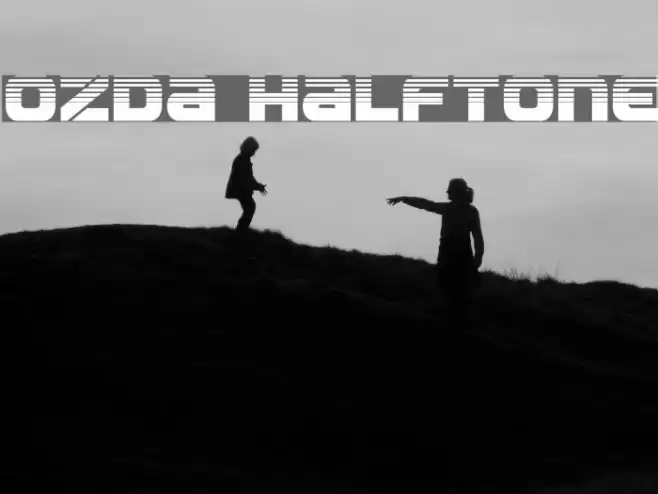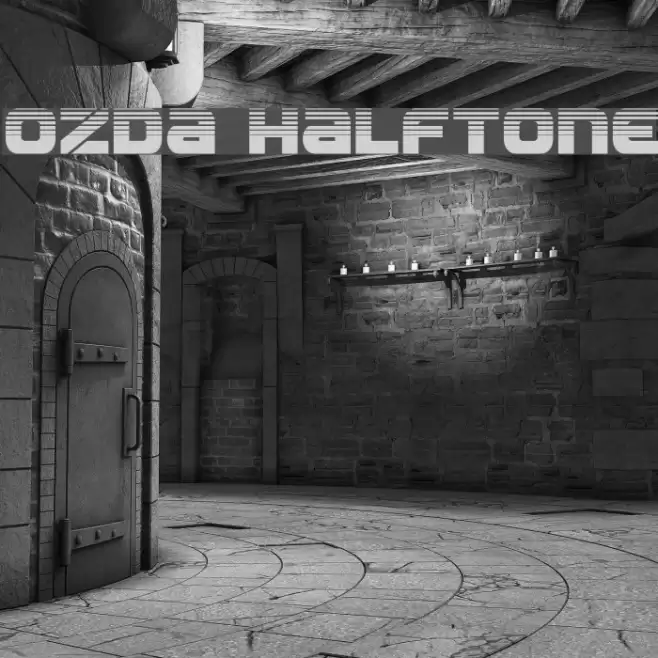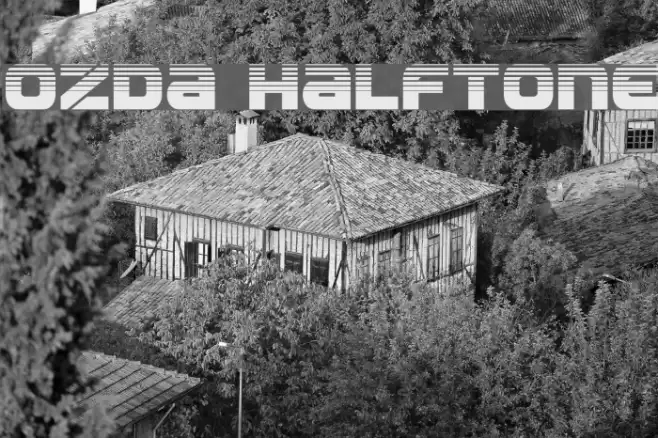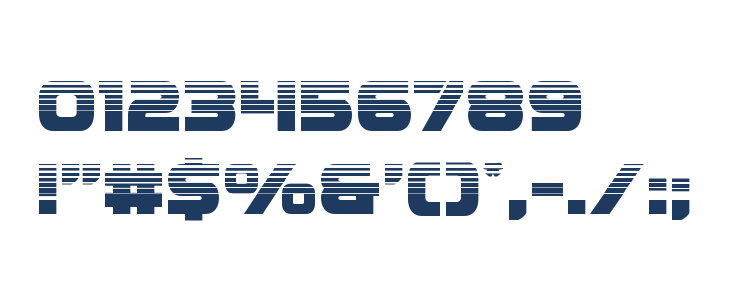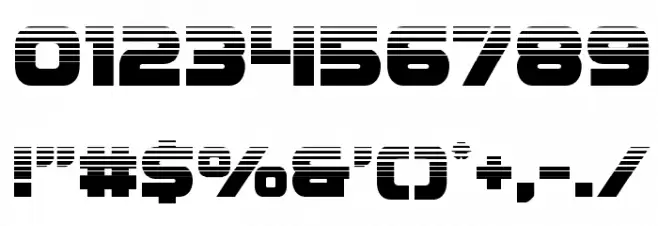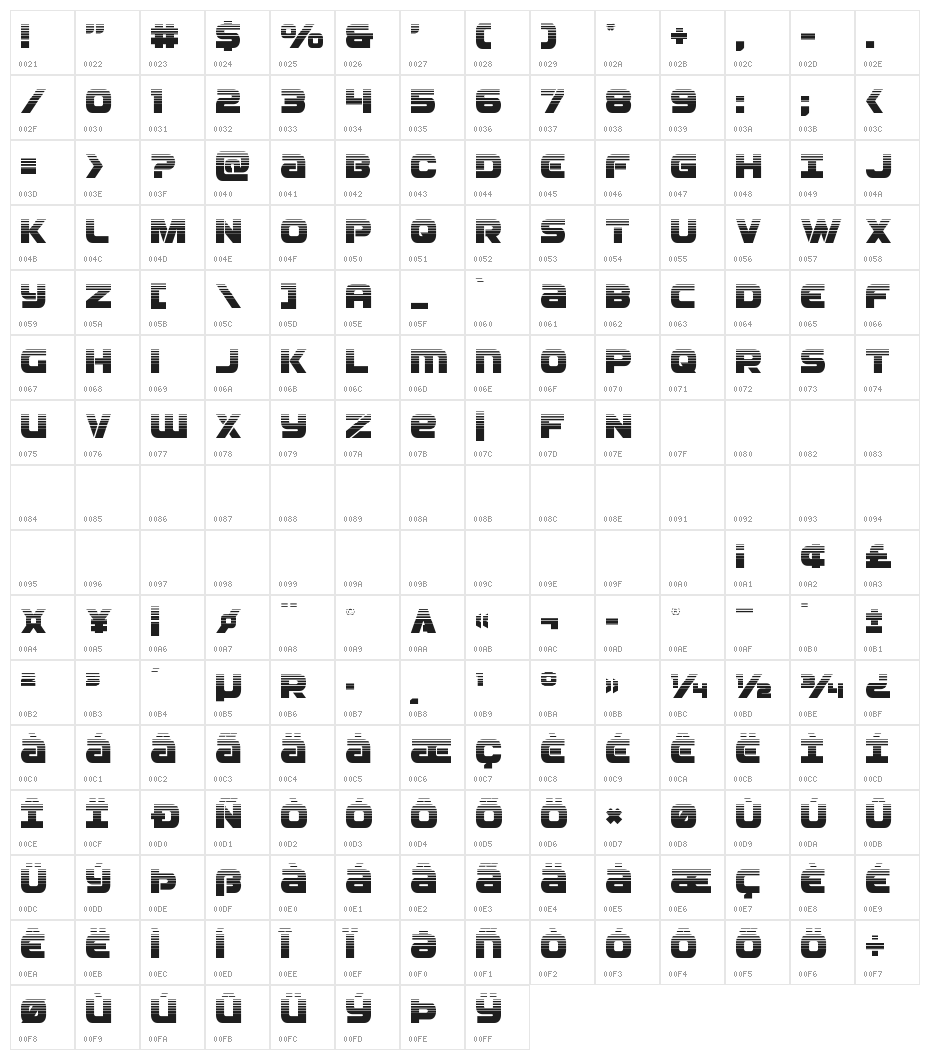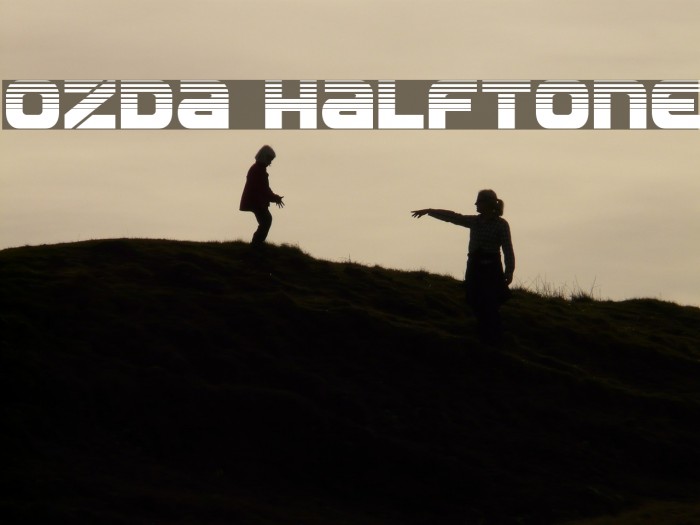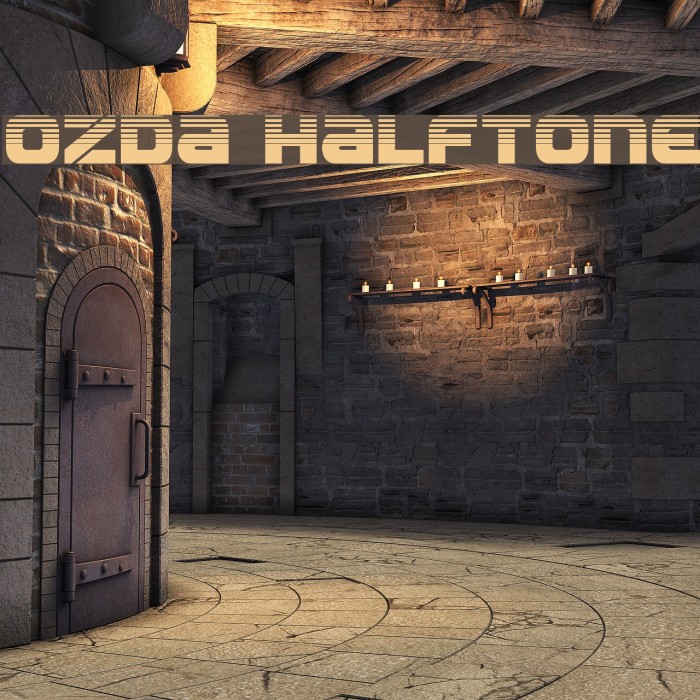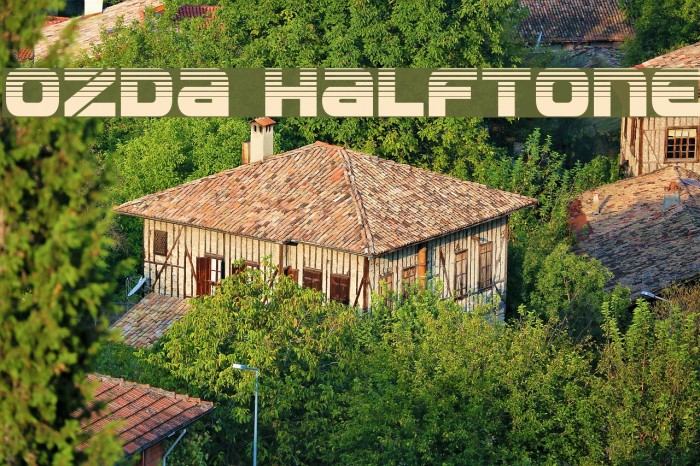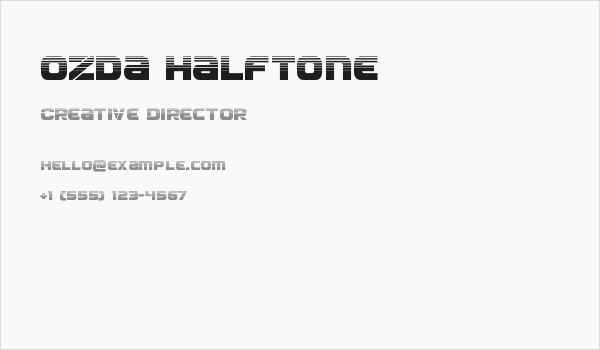
Ozda Halftone Font
Ozda Halftone Description
This font features a bold, geometric design with a unique halftone effect that creates a sense of movement and depth. The characters are constructed with horizontal lines that give a striped appearance, adding a dynamic and futuristic feel. The uppercase and lowercase letters maintain a consistent style, with sharp angles and clean lines. The numerals and special characters follow the same design principles, ensuring uniformity across all glyphs. This font is ideal for projects that require a modern and edgy look, such as tech-related branding, posters, or digital media.
A bold, geometric font with a halftone effect, ideal for modern and dynamic designs from Uncategorized fonts.
- Proposed Projects: Tech branding, digital media, posters, futuristic designs.